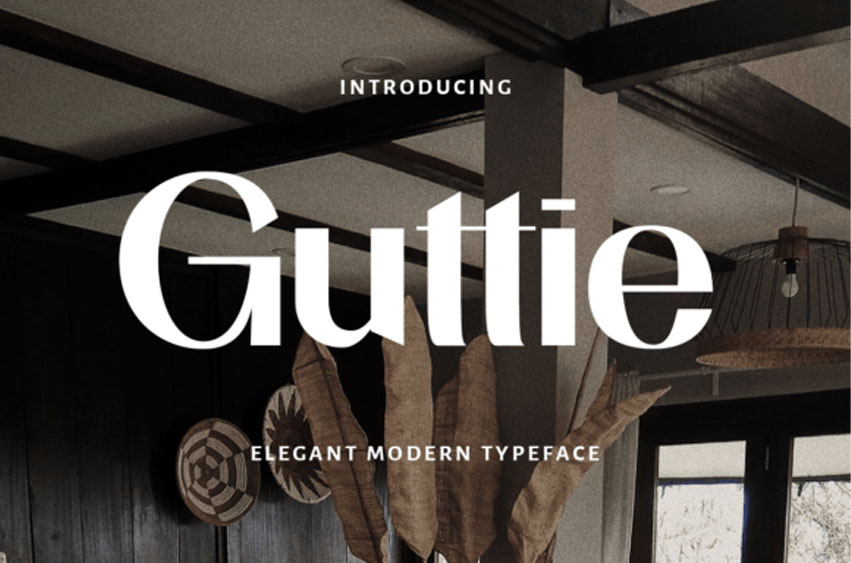
Guttie Font is a modern and cool display font.
Whether you’re using it for crafts, digital design, presentations, or making greeting cards, this font has the potential to become your favorite go-to font, no matter the occasion!